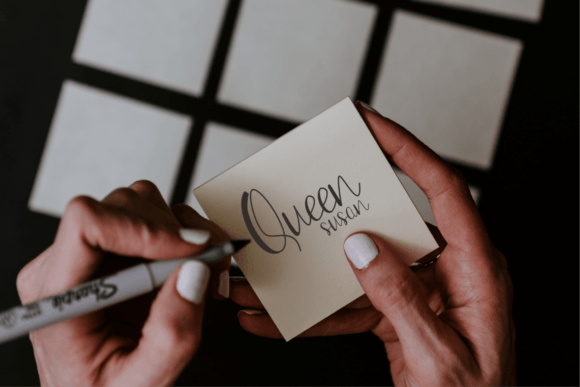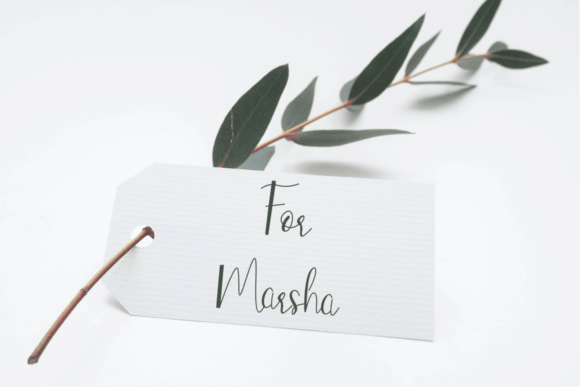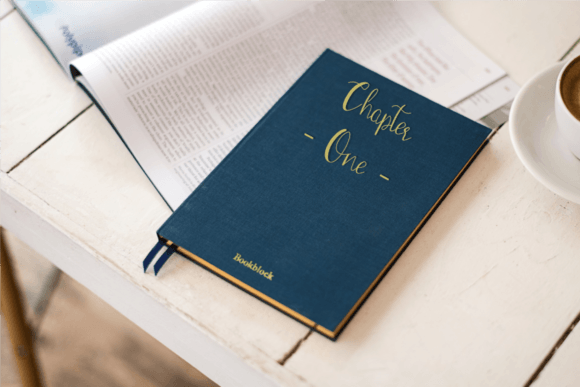
About Romiqa Font
Romiqa is a delicate and elegant handwritten font. Its distinct and well-balanced letters make this font a masterpiece. Fall in love with its incredibly versatile style and use it to create spectacular designs!